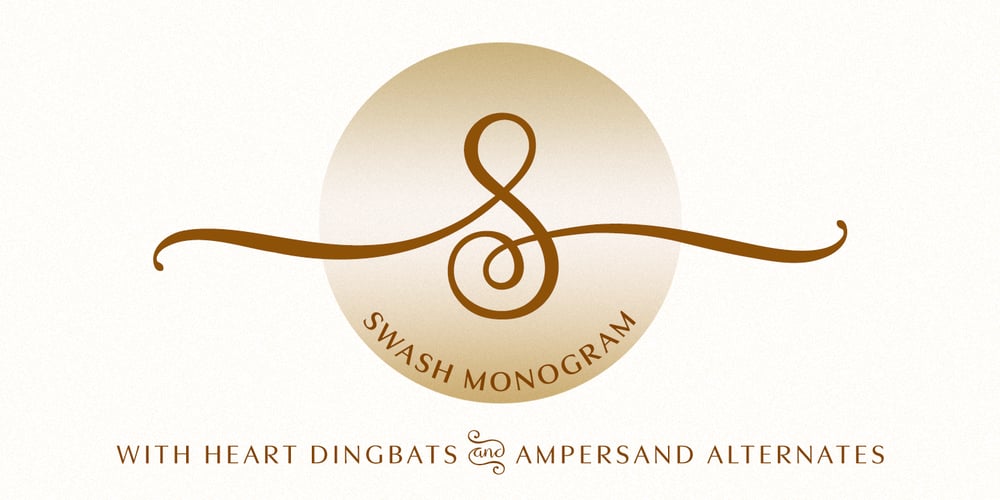
Swash Monogram
Swash Monogram font
Swash Monogram Font Family was designed by Andrea Stuart and published by StuArt. Swash Monogram contains 1 styles and family package options. Swash Monogram is a font with swashes both in the beginning and ending of a single character. It is perfect for branding, logos, business cards, invitations, stationery, posters, or any gift item you may wish to personalize.